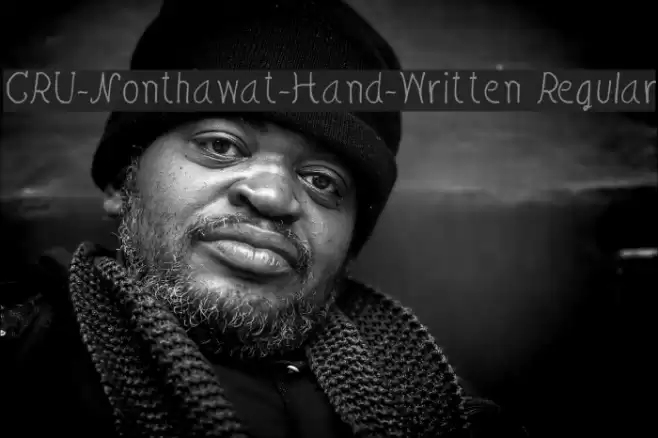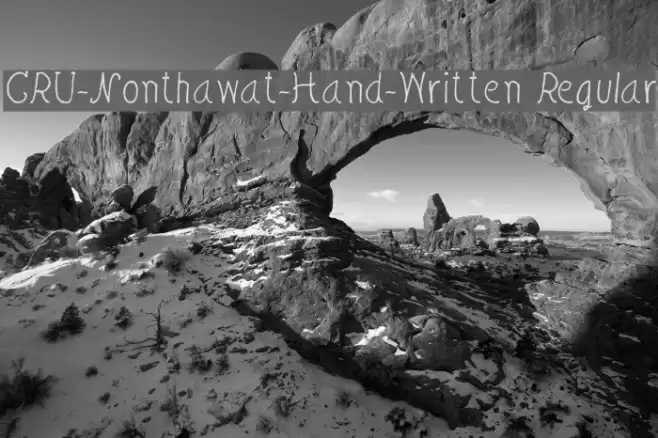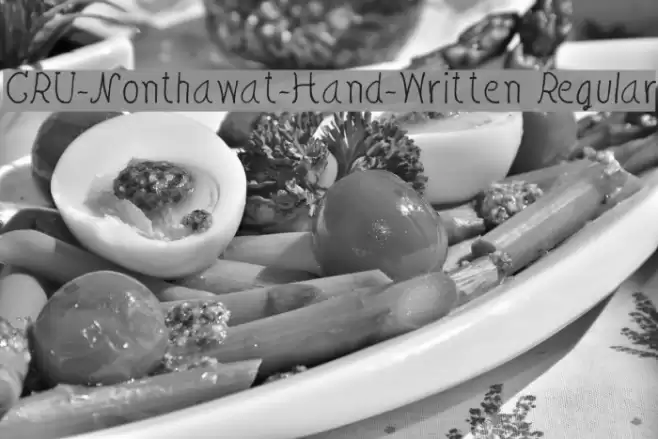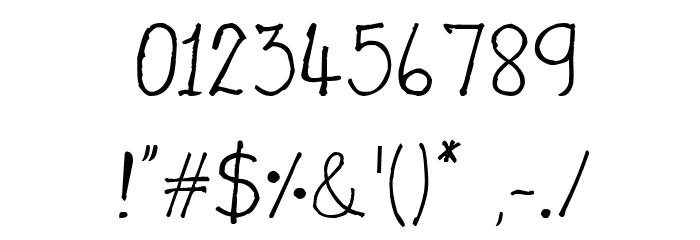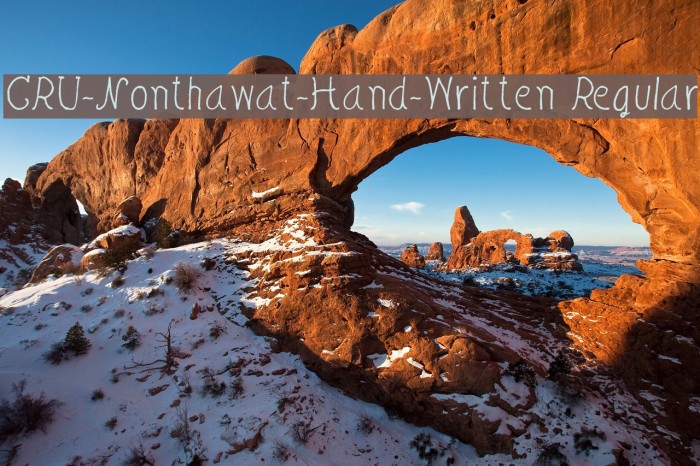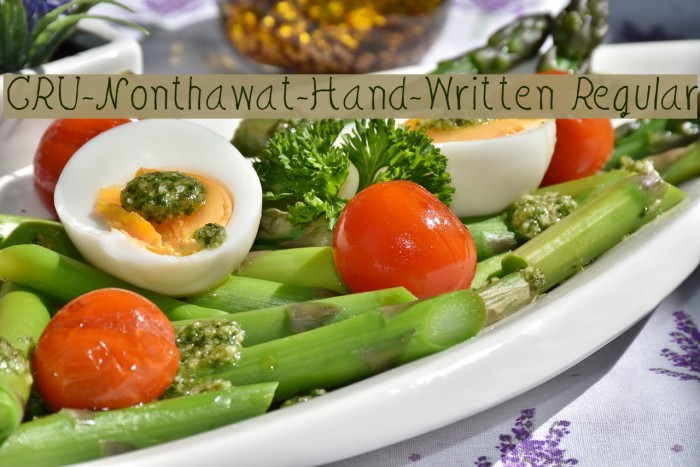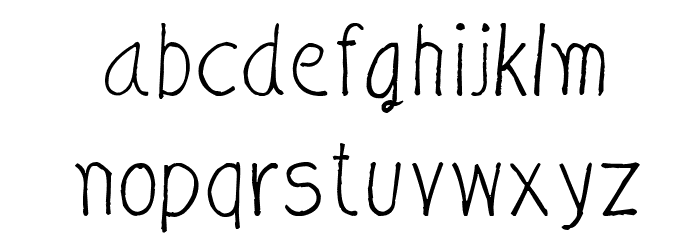
CRU-Nonthawat-Hand-Written Regular Font
CRU-Nonthawat-Hand-Written Regular Description
This font exhibits a charming hand-drawn style, characterized by its playful and informal appearance. The letters have a slightly uneven baseline, adding to the handwritten feel. The strokes are consistent in width, giving it a uniform look while maintaining a casual vibe. The uppercase letters are tall and slightly narrow, while the lowercase letters are more rounded and approachable. Numbers and special characters follow the same style, ensuring a cohesive look across all text elements. This font is perfect for projects that require a personal touch, such as invitations, greeting cards, or casual branding.
A playful, handwritten font with consistent strokes and a casual vibe from Uncategorized fonts.
- Proposed Projects: Ideal for invitations, greeting cards, personal branding, and casual design projects.
- Overall Style: Casual, Playful
- Use Case: Headlines, Informal text, Personal projects